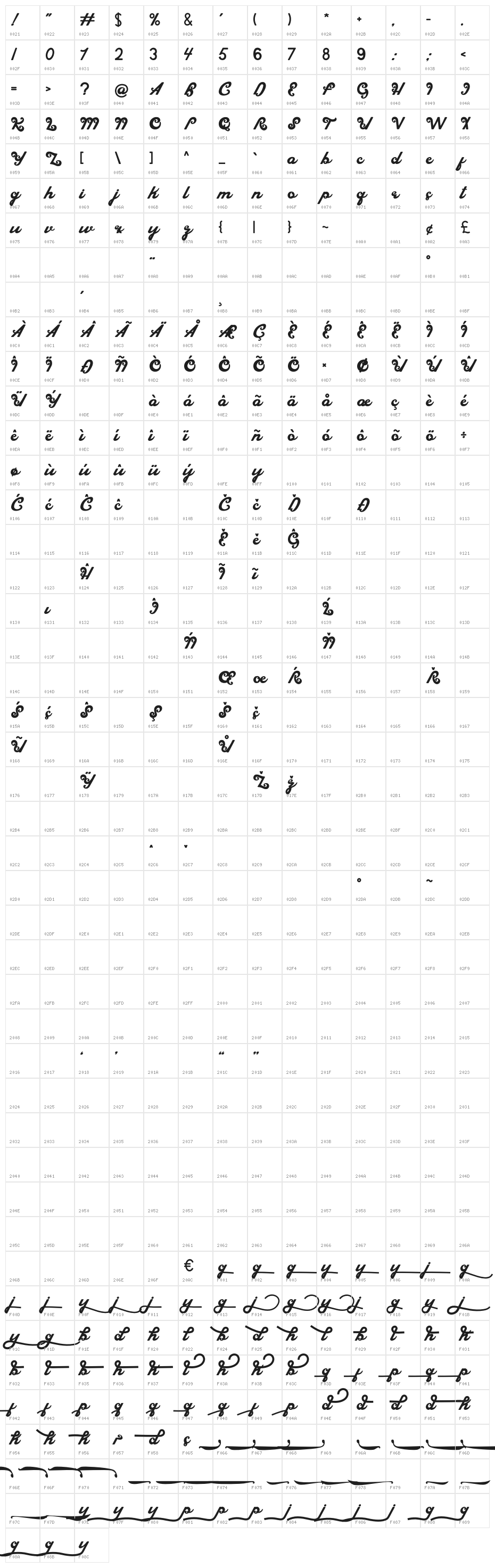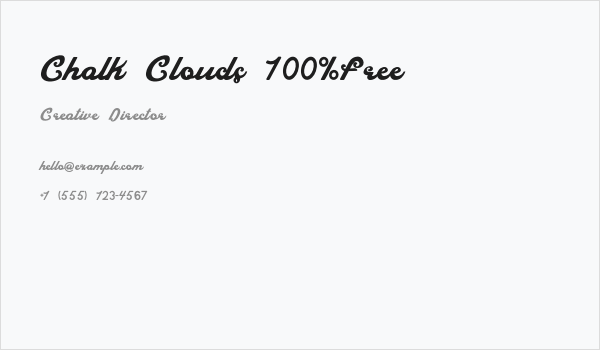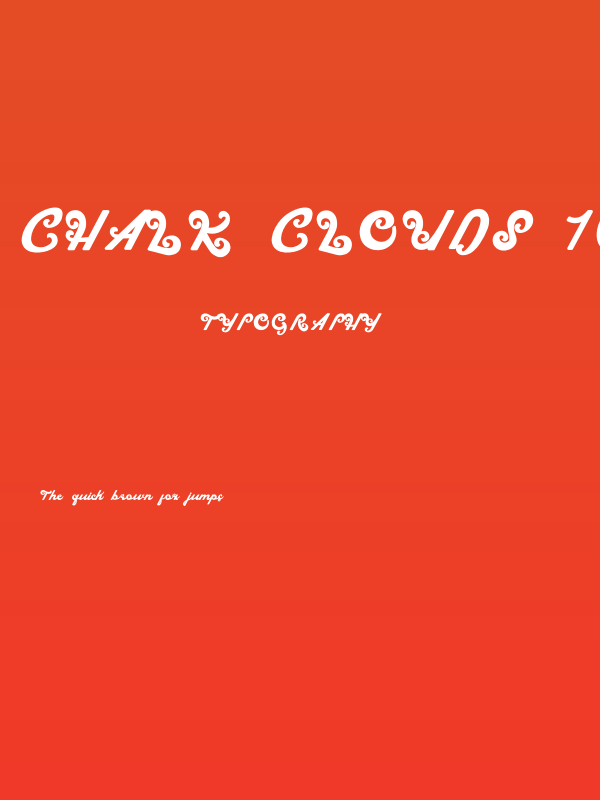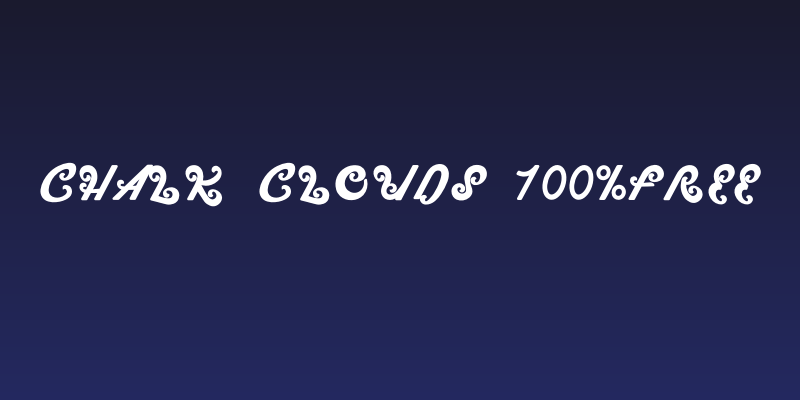
Chalk Clouds 100%Free Font
Chalk Clouds 100%Free Description
This font features a playful and whimsical design with a script-like appearance. The uppercase letters are characterized by their curly and decorative serifs, giving them a unique and artistic flair. The lowercase letters maintain a smooth, flowing style that complements the uppercase, creating a cohesive look. The numbers are bold and slightly rounded, ensuring readability while maintaining the font's overall playful aesthetic. Special characters are creatively designed, adding to the font's charm and versatility. This font is ideal for projects that require a fun, informal, and eye-catching typeface.
| Overall Style | Playful, Whimsical, Artistic |
| Proposed Projects | Ideal for children's book covers, playful branding, greeting cards, and creative posters. |